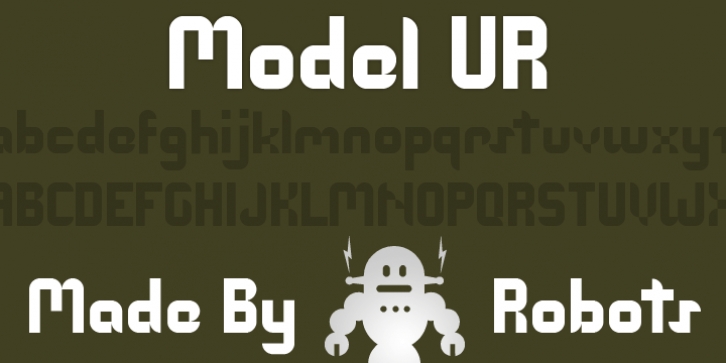
Model UR downloadDesigner: Kent Swecker
Publisher: A New Machine
This modular font is an experiment in simplicity - there are only 2 shapes in the entire font. Good for headline/display use.